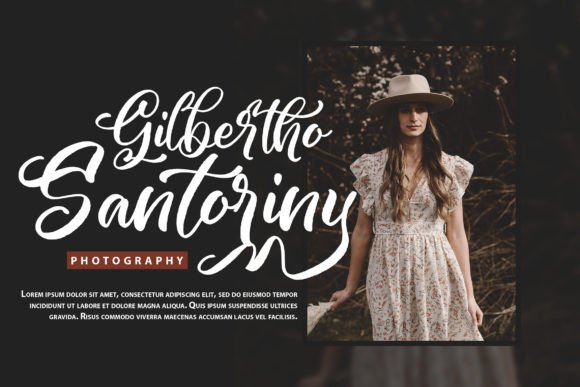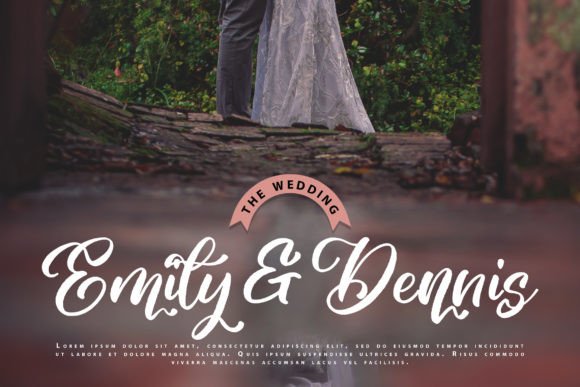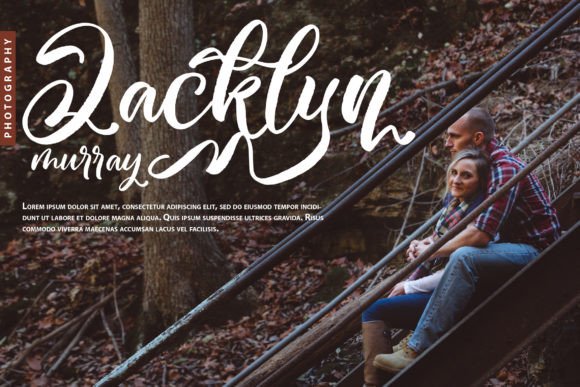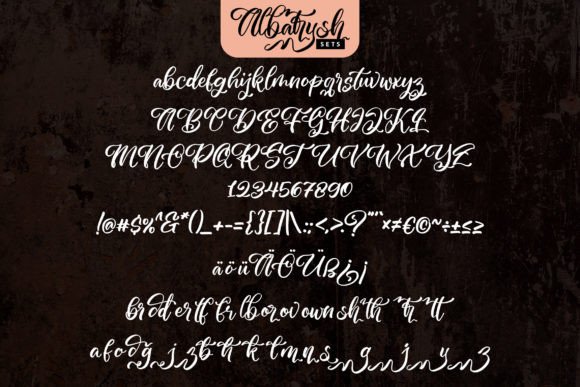
Albatrysh Font
The Albatrysh Font Download is a bold and gorgeous script typeface that combines rhythm, elegance, and handcrafted charm. Its striking brush-style strokes make it an excellent choice for projects that need a touch of sophistication while maintaining a modern feel. Whether you are working on branding, stationery, or digital projects, Albatrysh adds strength and beauty to your work.
A Bold Script with Elegant Rhythm
The Albatrysh script font offers a balanced flow with smooth curves and bold lines. As a result, it feels both dynamic and stylish. Furthermore, its handcrafted style adapts beautifully to small decorative text as well as large display titles.
Handwritten script fonts always enhance personal design projects. The Albatrysh Font is perfect for wedding invitations, thank you cards, birthday greetings, and seasonal stationery. Because of its bold brush strokes, each piece feels powerful yet elegant. In addition, it ensures your designs stand out with style.
Branding and Logo Design with Albatrysh Font
Typography plays a crucial role in branding. The Albatrysh handwritten font is ideal for logos, product packaging, and promotional materials. Its bold personality communicates confidence while its curves maintain approachability. Therefore, it is particularly effective for fashion, lifestyle, and creative industries.
Posters, Editorials, and Creative Displays
The Albatrysh Font Download also shines in posters, magazines, and book covers. Its bold rhythm makes headlines pop while keeping text visually appealing. Consequently, it is a reliable choice for designers who want balance between creativity and readability.
In today’s digital world, fonts must engage viewers instantly. The Albatrysh typeface integrates smoothly into Instagram posts, YouTube thumbnails, Pinterest graphics, and blogs. Because of its bold handwritten character, it adds personality and charm to all digital projects.
Why Designers Choose Albatrysh Typeface
Designers appreciate fonts that balance boldness with elegance. The Albatrysh handwritten script provides strength without sacrificing beauty. This makes it a versatile tool for both professionals and hobbyists. Moreover, its timeless brush rhythm ensures it remains stylish for years to come.
Add Bold Elegance to Your Projects Today